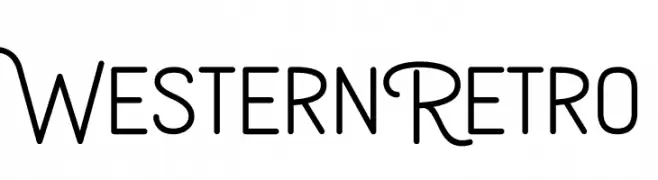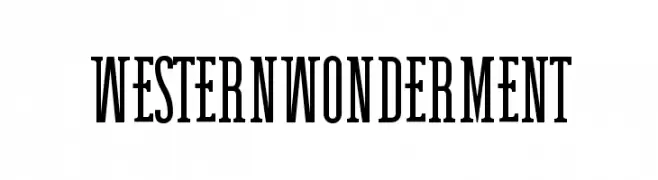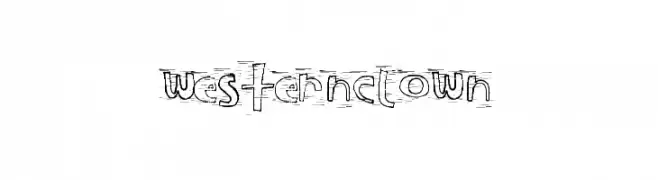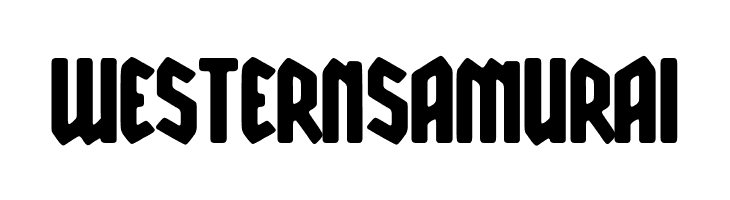
• Western Regular:001.001 schriftart
• Western Retro schriftart
A decorative font with Western and retro influences, featuring ornate uppercase letters and clean numerals.
• Western Samurai schriftart
A bold, angular font blending Western and Samurai styles.
• Western Swagger DEMO schriftart
A bold, decorative font with a rugged, Western-inspired style.
• Western Wonderment schriftart
• WesternClown schriftart
A playful, hand-drawn font with a whimsical and sketchy style.
• Westerngames Outline Regular schriftart
A bold, 3D outline font with a Western-inspired style.
• Westerngames Regular schriftart
A bold, decorative font with a Western theme and three-dimensional appearance.
• WesternPastHeroes schriftart
Illustrative display font with Western historical and mythological themes.
• WesternRacing schriftart
A bold, western-themed font with intricate detailing and a vintage feel.